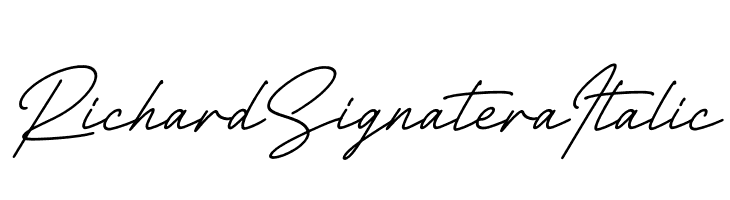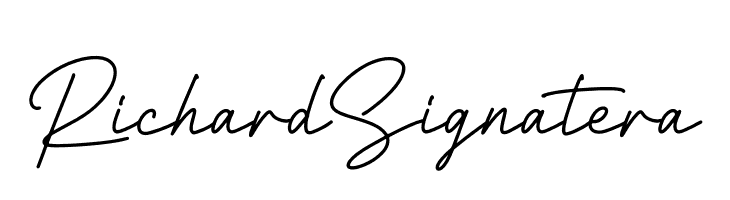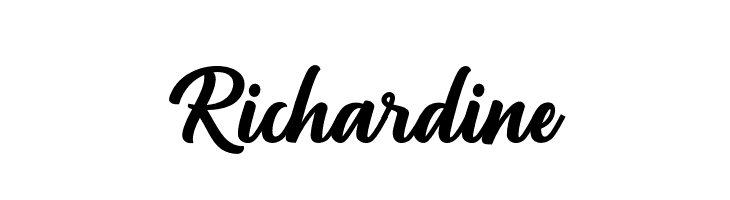
A bold, expressive script font with fluid, interconnected strokes.
A dynamic and fluid script font with elegant, flowing letterforms.
A casual, playful handwritten font with smooth, flowing lines.
A dynamic, expressive handwritten font with a fluid, cursive style.
A dynamic, cursive font with fluid, connected strokes and an elegant, handwritten style.
A flowing, elegant script font with a handwritten appearance.
A bold, playful font with rounded, hand-drawn characters.
An elegant script font with flowing, interconnected letters and high contrast strokes.
A graceful, cursive script font with a natural handwriting style.
A cursive, flowing script font with elegant, elongated strokes.